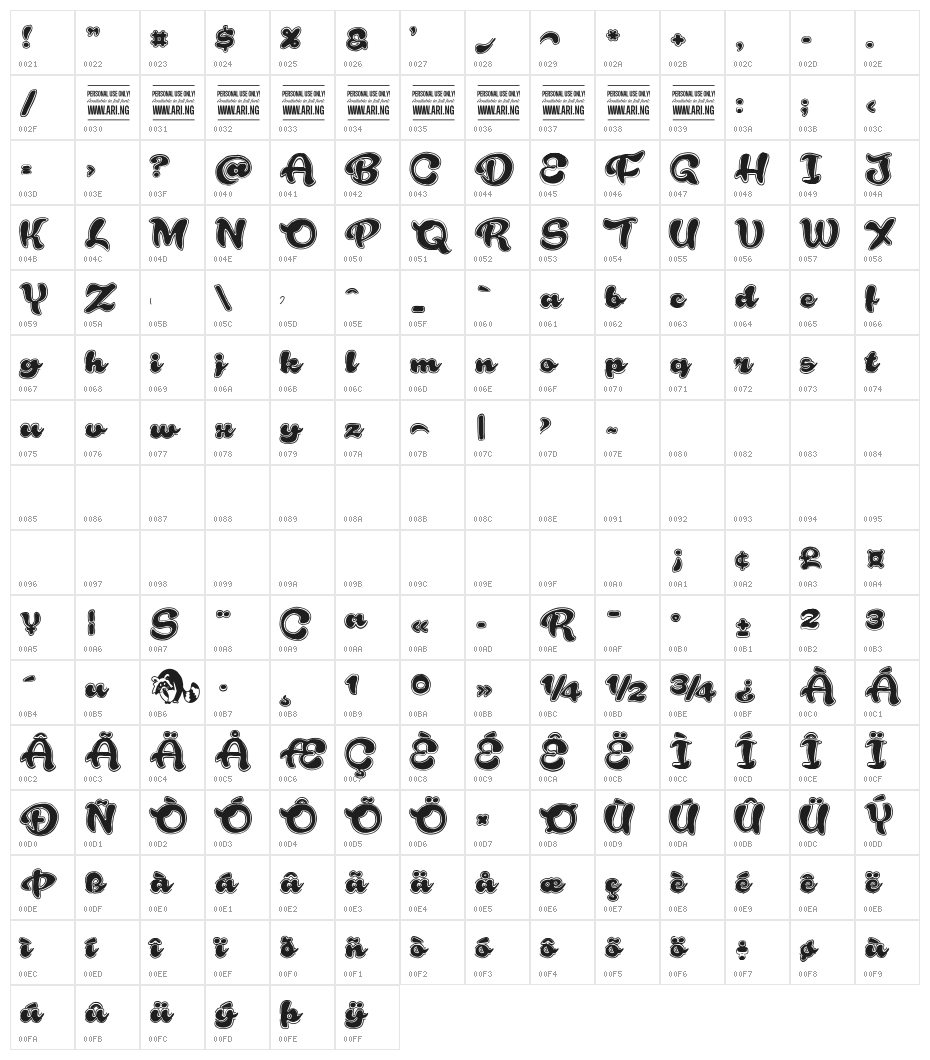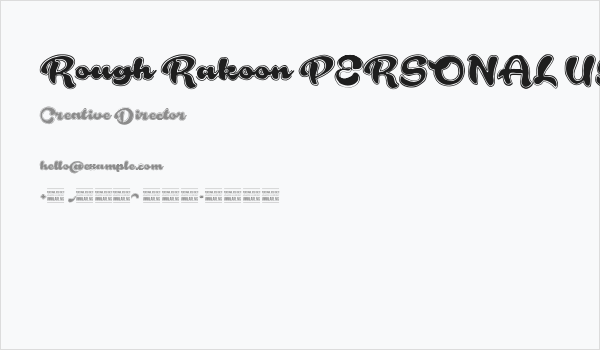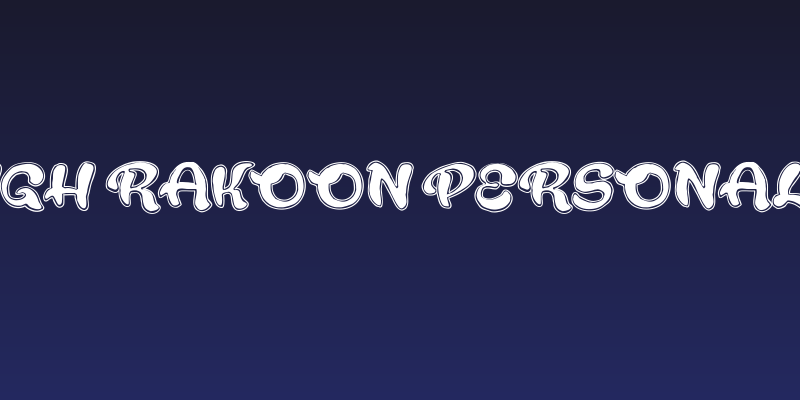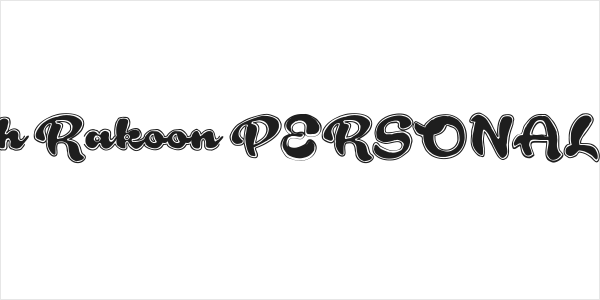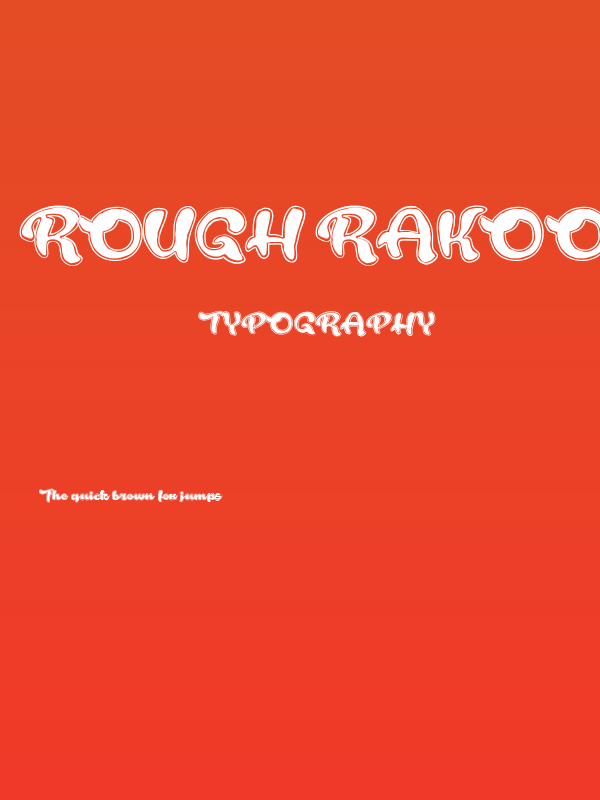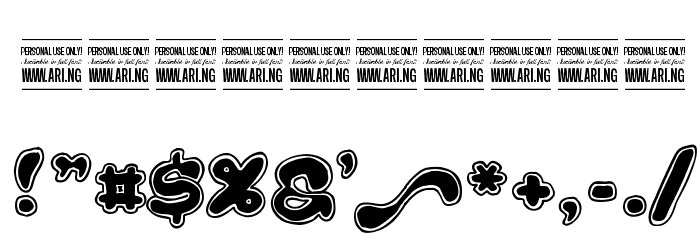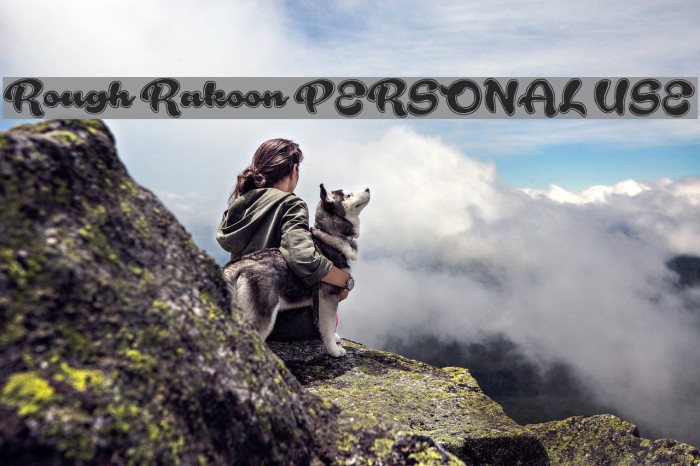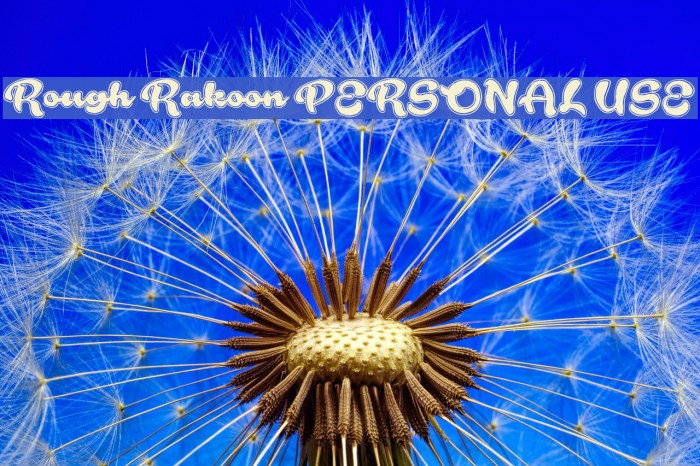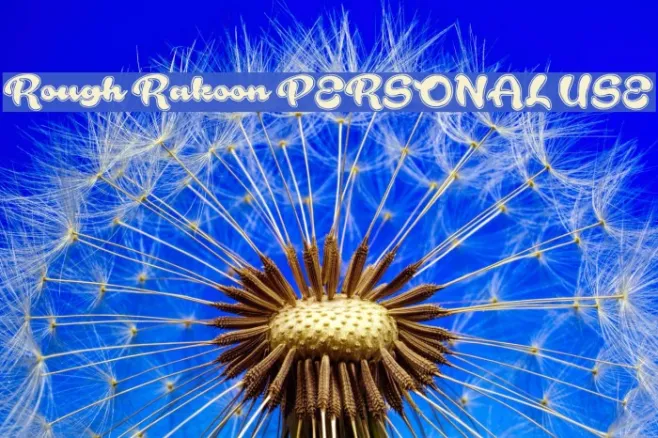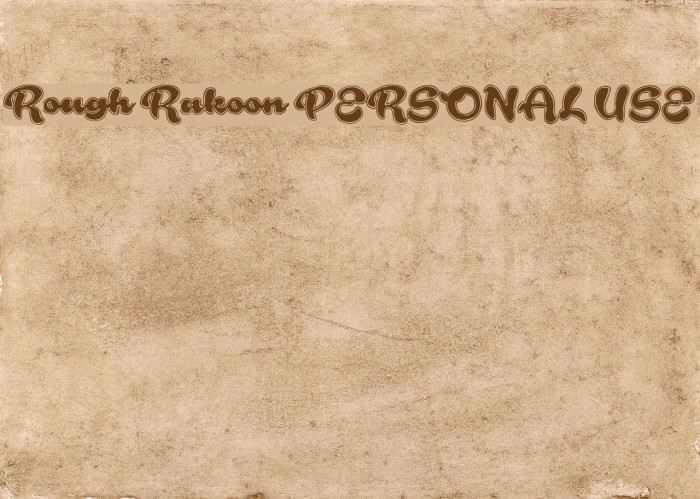
Rough Rakoon PERSONAL USE Font
Rough Rakoon PERSONAL USE Description
This font features a bold, playful style with a thick outline that gives it a cartoonish and dynamic appearance. The letters are rounded and have a bubble-like quality, making them stand out with a strong visual impact. The uppercase and lowercase letters maintain a consistent style, with a slight slant that adds a sense of movement. The special characters are equally bold and complement the overall aesthetic. This font is perfect for projects that require a fun and engaging look, such as children's books, posters, or branding for playful products.
| Overall Style | Playful, Cartoonish |
| Proposed Projects | Ideal for children's books, playful branding, posters, and creative designs. |